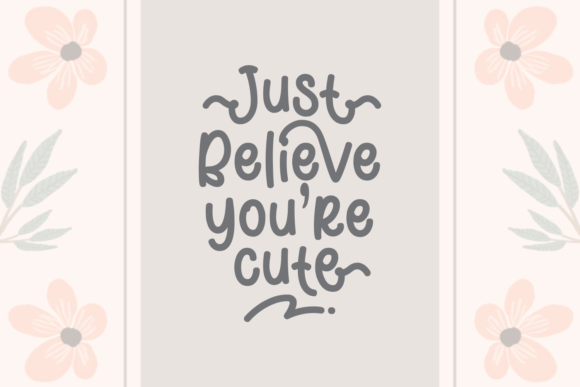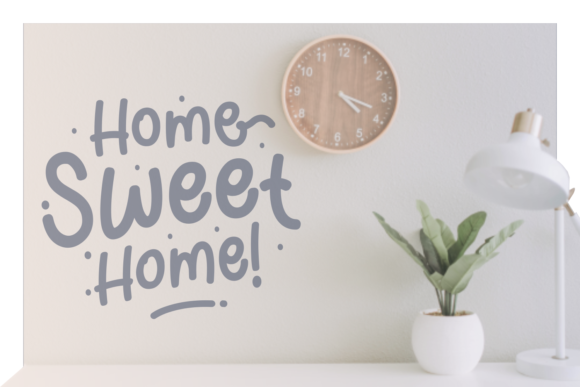
The Ultimate Design Game-Changer: Cute Nesia Font
I’ll never forget the time I was working on a project for a client’s birthday party invitation. I had the design almost finished, but something was missing – the perfect font. I scrolled through my font library, but nothing seemed quite right. That’s when I stumbled upon Cute Nesia, a fun and bold handwritten font that completely transformed my design. In this article, I’ll share my experience with Cute Nesia, its unique features, and how to make the most of it in your designs.
An Honest Review of Cute Nesia
What I Love About Cute Nesia ✨
- Unique and playful feel that adds a personal touch to any design
- Bold and eye-catching, making it perfect for headings and titles
- Works well with a variety of design styles, from modern to vintage
- Easy to read, even in smaller sizes
- Constantly updated with new features and improvements
- May not be the best choice for very formal or professional designs ⚠️
- Some users may find the font a bit too bold or overpowering ⚠️
- Take advantage of OpenType features, glyphs, and stylistic alternates to add more personality to your design
The Story Behind Cute Nesia
Cute Nesia was designed with one goal in mind: to create a font that’s both fun and functional. The designer, inspired by the world of childhood imagination, aimed to craft a font that’s reminiscent of handwritten notes and colorful illustrations. With its unique feel and bold personality, Cute Nesia is sure to turn any design project into a standout!